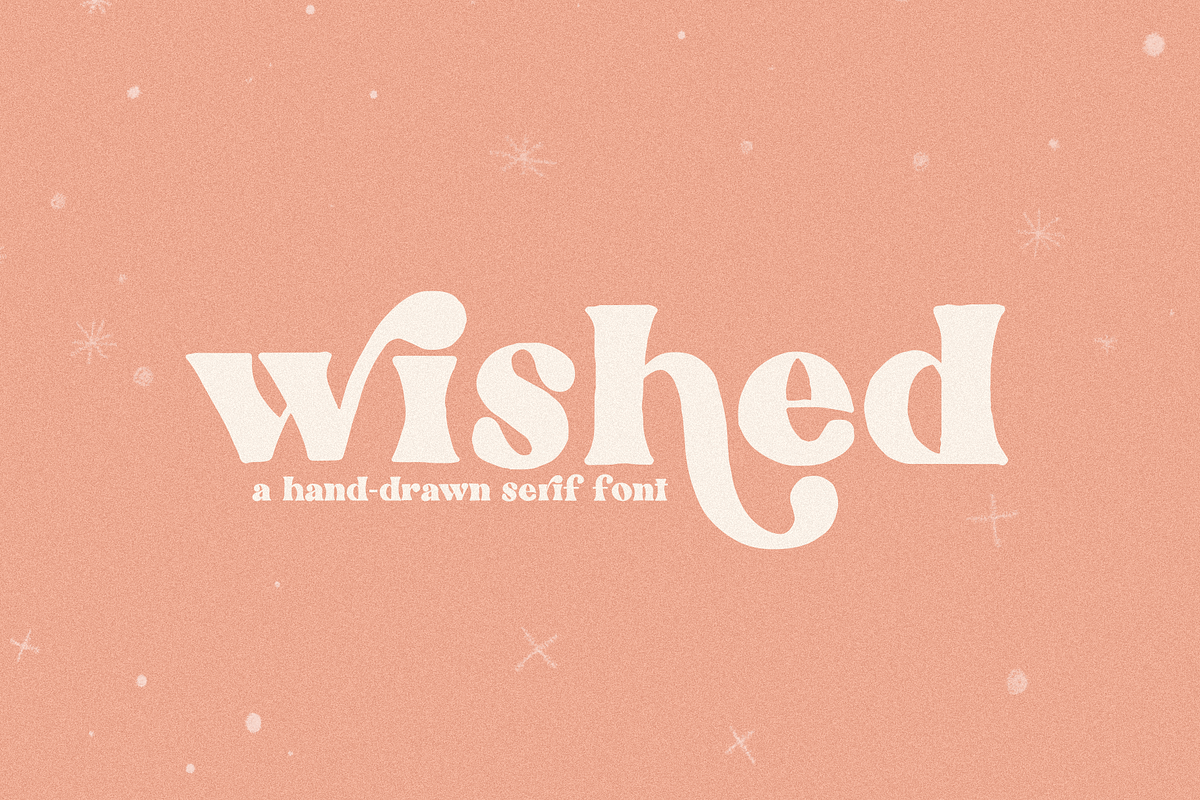
Hand drawn serif fonts. While sans serif fonts prevail for displaying text on computers and online serif fonts are still the undisputed choice for printed work. Wished is an imperfect hand drawn serif font. You can easily recognize serif fonts since they have a small line attached to each letter at the end of the stroke. We have 4 free hand drawn sans serif fonts to offer for direct downloading 1001 fonts is your favorite site for free fonts since 2001.
It has a modern look with a free spirit touch. Albums add to album. Wished hand drawn serif font. Wished is an imperfect hand drawn serif font.
There are a fun set of alternative letters to play with as well. Wished regular otf 400 about the product. Please make sure you know how to access alternate characters in the program of your choice. It has a modern look with a free spirit touch.